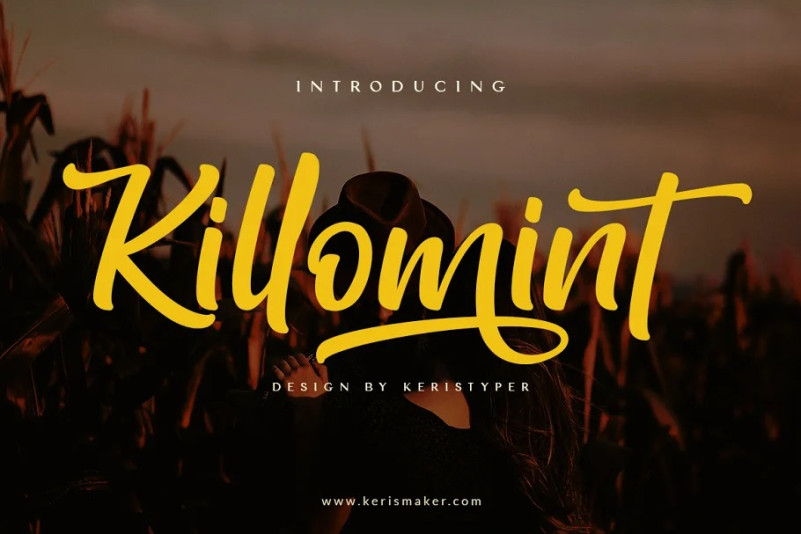
Killomint Font
Introducing Killomint Script Font, which has an elegant and natural hand lettering brush style like handmade. This font is best suited for your design projects that are fun, bold, and sporty. Can also be applied to logotype designs, website headers, making multiple letters for quotes, t-shirt designs etc.